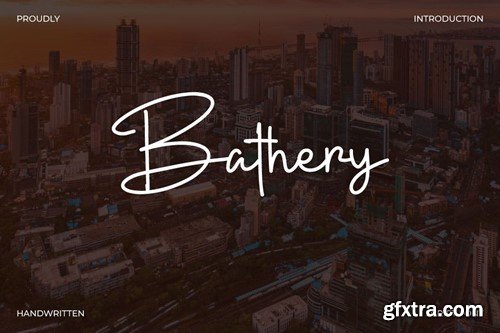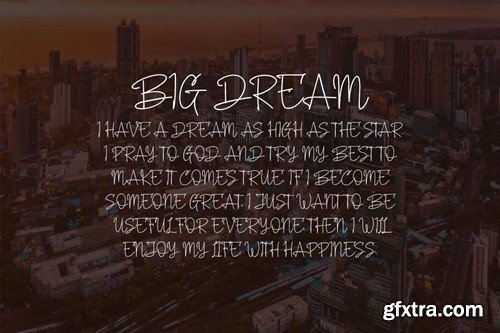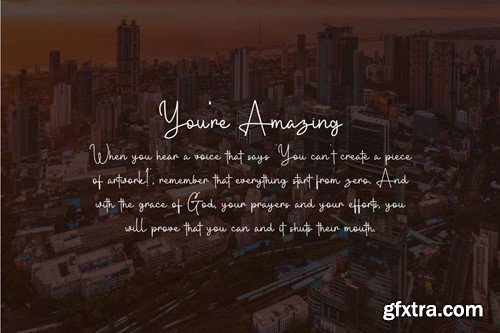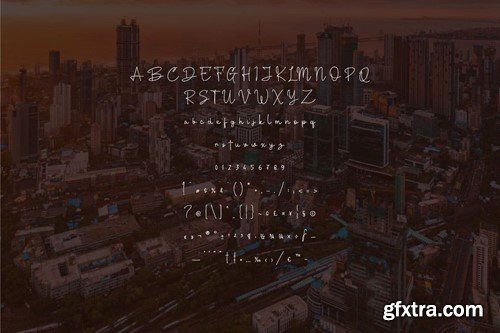
Bathery - 手写体脚本字体 C3P7EL2
Bathery - Handwritten Script Font
Dive into the world of sophistication and elegance with Bathery a premium thin signature font. Designed with precision and a keen eye for detail, Bathery captures the essence of personal touch and refined taste, making it a perfect addition to your design toolkit. In a digital age where branding and personalization are key, Bathery stands out by offering an effortlessly stylish font that resonates with luxury and exclusivity. Its thin, flowing lines are reminiscent of high-end signature logos, providing a level of sophistication that elevates any design project. The zip file is include: Thank You!